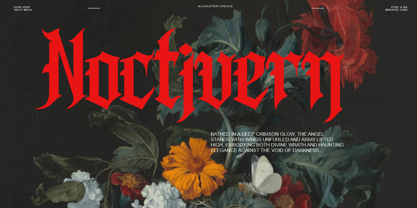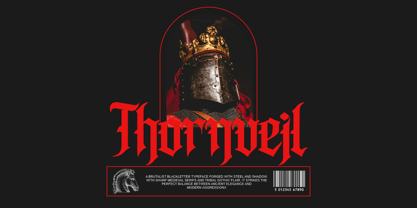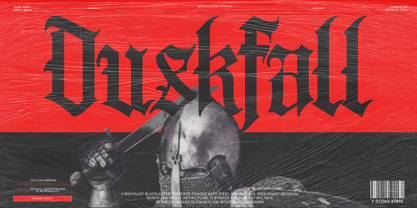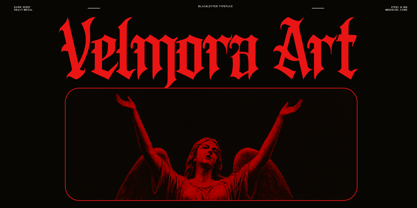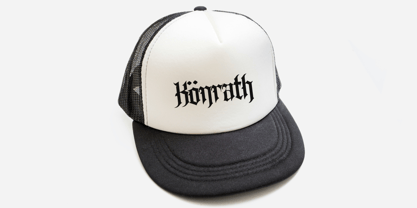
Duskfall
by Reyrey Blue Std
The Duskfall Font Family was designed by Nur Hasan and published by Reyrey Blue Std. Duskfall contains 1 styles. More about this family
Duskfall is a captivating modern blackletter font that draws inspiration from the intricate beauty of medieval engravings and gothic aesthetics. Its bold, dark, and elegant design strikes a harmonious balance between ancient traditions and contemporary flair. Ideal for a range of creative applications, Duskfall excels in branding projects, stunning posters, distinctive logos, striking album covers, trendy streetwear, eye-catching tattoos, haunting horror artwork, and immersive fantasy themes. With sharp details and a commanding presence, Duskfall infuses any design with a dramatic, timeless gothic charm that captivates and engages audiences.
Designers: Nur Hasan
Foundry: Reyrey Blue Std